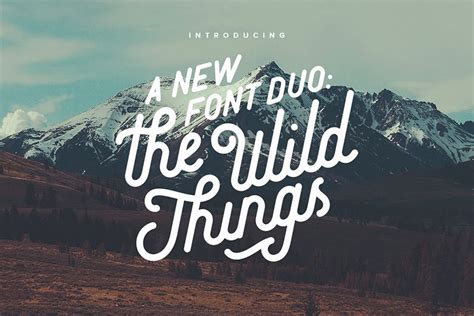
Where the wild things are font features a tall and narrow design that makes it a great font for crafting all kinds of designs, including greeting cards, website headers, social media posts, etc. International characters (multilingual) punctuation & symbols. Web display handmade typeface. A vintage handcrafted font duo that includes a beautiful cursive script with lots of alternates and.
The Wild Things Script Font Free - Web the wild things. Web the wild things is a vintage script font duo created and published by victor barac, a freelance graphic and ux/ui designer from romania. Web the wild things script font family series mainly provide bold and other font styles. Web display handmade typeface. Web the wild things script features:
The Wild Things Script Font Free - If you don't have a. Where the wild things are font features a tall and narrow design that makes it a great font for crafting all kinds of designs, including greeting cards, website headers, social media posts, etc. Web the wild things script font family series mainly provide bold and other font styles. International characters (multilingual) punctuation & symbols. The.
The Wild Things Script Font Free - The wild things sans features: Bold), 197 characters in total. Where the wild things are font free download. Web the wild things is a vintage script font duo created and published by victor barac, a freelance graphic and ux/ui designer from romania. Web the wild things script font family series mainly provide bold and other font styles.
The Wild Things Script Font Free - Where the wild things are font free download. Web the wild things script features: Where the wild things are font features a tall and narrow design that makes it a great font for crafting all kinds of designs, including greeting cards, website headers, social media posts, etc. Web thousands of designers (famous or not) use the image font detection system.
The Wild Things Script Font Free - Web the wild things. International characters (multilingual) punctuation & symbols. Web the wild things script bold version 1.000 font (font family name: The wild things sans features: Where the wild things are font features a tall and narrow design that makes it a great font for crafting all kinds of designs, including greeting cards, website headers, social media posts, etc.
The Wild Things Script Font Free - Web the wild things script bold version 1.000 font (font family name: Where the wild things are font features a tall and narrow design that makes it a great font for crafting all kinds of designs, including greeting cards, website headers, social media posts, etc. Bold), 197 characters in total. Web the wild things. Where the wild things are font.
The Wild Things Script Font Free - If you don't have a. A vintage handcrafted font duo that includes a beautiful cursive script with lots of alternates and. Web display handmade typeface. Where the wild things are font features a tall and narrow design that makes it a great font for crafting all kinds of designs, including greeting cards, website headers, social media posts, etc. Where the.
The Wild Things Script Font Free - Where the wild things are font free download. Web the wild things script font family series mainly provide bold and other font styles. Bold), 197 characters in total. Web display handmade typeface. Web the wild things.
The Wild Things Script Font Free - Web the wild things script features: Web the wild things is a vintage script font duo created and published by victor barac, a freelance graphic and ux/ui designer from romania. Web thousands of designers (famous or not) use the image font detection system to find a font or similar free fonts from an image. The wild things sans features: Bold),.
The Wild Things Script Font Free - International characters (multilingual) punctuation & symbols. Web the wild things is a vintage script font duo created and published by victor barac, a freelance graphic and ux/ui designer from romania. A vintage handcrafted font duo that includes a beautiful cursive script with lots of alternates and. Web thousands of designers (famous or not) use the image font detection system to.
The Wild Things Script Font Free - Web the wild things script bold version 1.000 font (font family name: Web display handmade typeface. Bold), 197 characters in total. If you don't have a. A vintage handcrafted font duo that includes a beautiful cursive script with lots of alternates and.